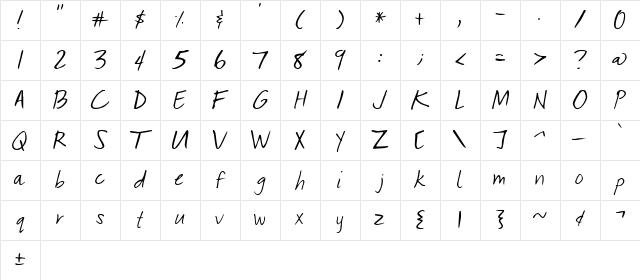
2Peas Quick Regular
Design Context for 2Peas Quick
2Peas Quick is a composed and adaptable typeface that performs quietly and consistently across a wide range of design contexts.